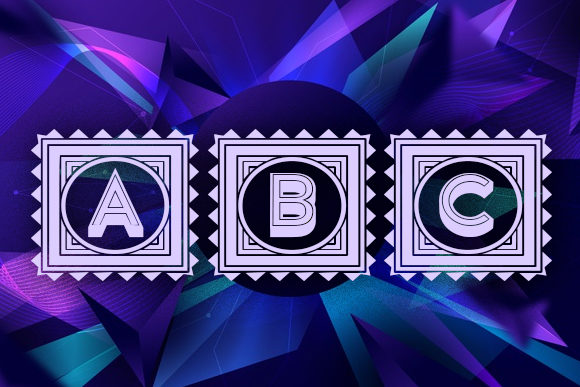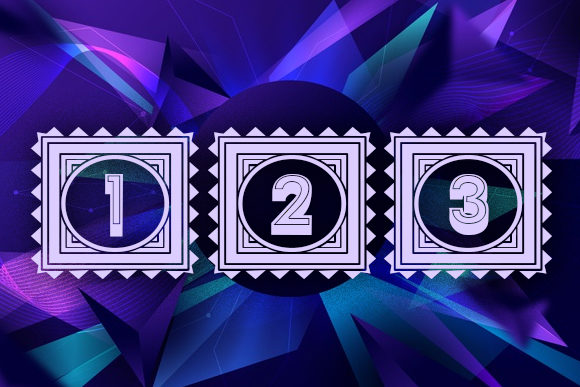
Give Your Projects a Unique Touch with Impression Font
You know that moment when you’re working on a crafting project, and you’re stuck trying to find the perfect font to make it stand out? It’s like searching for the perfect paint color for a room – you want it to be just right, not too much, not too little. That’s where Impression Font comes in, a beautiful decorative font that adds a touch of elegance and sophistication to any design.
This versatile font is a must-have for designers who want to give their projects a unique look. With Impression Font, you can create invitations, greeting cards, and other paper crafts that are truly one-of-a-kind. Its value lies in its ability to add a personal touch to any design, making it perfect for special occasions and events.
Impression Font Key Features
- Font Family: Impression Font is a modern sans-serif font family, designed for digital and print media.
- Unique Characteristics: Impression Font features a unique blend of modern and classic elements, with subtle rounded corners and a clean, minimalist aesthetic.
Impression Font Review
As a designer, I was excited to try out the Impression font, and overall, I’m pleased with the results. ✨ One of the things that works well is the elegant and sophisticated feel it brings to any design project. It’s perfect for high-end branding, luxury products, or anything that requires a touch of sophistication.
The font’s versatility is another plus. ✨ It’s available in a range of weights, from light to bold, making it easy to use in various contexts. The font also comes in multiple styles, including script and sans-serif, giving designers a lot of flexibility when it comes to choosing the right look and feel.
While the Impression font is a solid choice, there are a few limitations to consider. ⚠️ One of the main issues is the limited language support. If you need to typeset text in multiple languages, you may find that this font falls short.
- ⚠️ Limited language support
- ⚠️ Not ideal for casual or informal designs
Overall, I think the Impression font is a great choice for designers who need a sophisticated and elegant font. While it may have some limitations, it’s a solid addition to any design toolkit.
Impression Font is ideal for:
- Adding a touch of elegance to invitations and wedding stationery.
- Creating a luxurious look for packaging and branding materials.
- Enhancing the aesthetic of digital products, such as e-books and magazines.
For the most effective use of Impression Font, experiment with different font sizes, colors, and styles to create a unique look that complements your design.
Compared to Impression Font, Playfair Display has a more luxurious feel and is better suited for high-end branding and formal invitations. While Impression Font is more versatile, Playfair Display excels at adding a touch of elegance to your designs.
Lato is a more straightforward alternative to Impression Font, offering a clean and simple design that works well for a wide range of applications. While Impression Font has a more decorative feel, Lato excels at providing a clear and readable text.
Compared to Impression Font, Montserrat has a more modern and urban feel, making it better suited for city-based branding and projects. While Impression Font is more versatile, Montserrat excels at providing a strong and modern look for your designs.